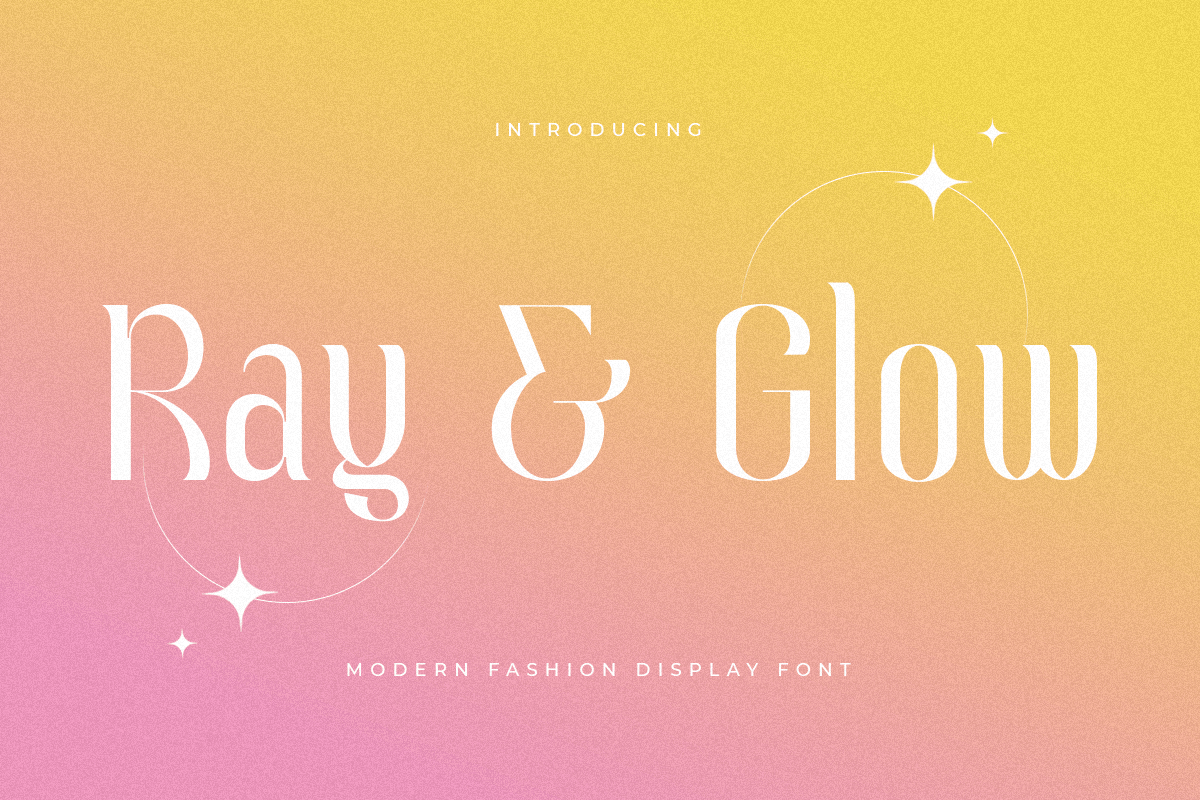
Ray & Glow
A Fashion font that we created special for beauty branding needs, with extra ligatures in unique shape will be ready to add value of your brand. It so nice to leverage designer or product owner that need solutions to make their design look more beauty and modern. And specially for Ray & Glow font, We prepared any ligatures characters to help you create unlimited variations for your creative needs.
Any options to get creative variations (combination of Ligatures)
Preview as a inspirations that you can do with Ray & Glow font